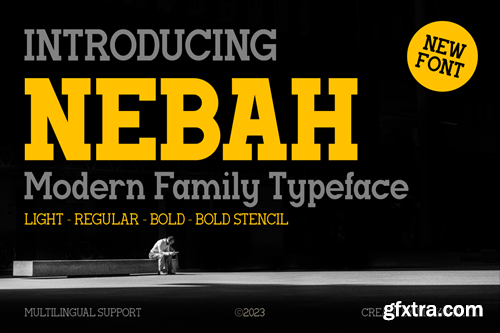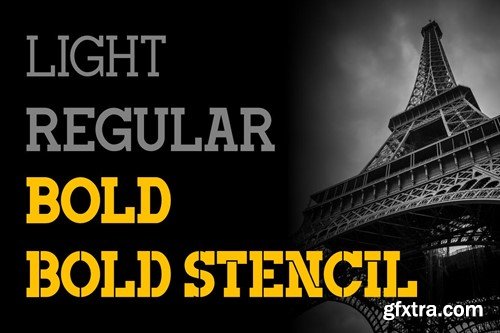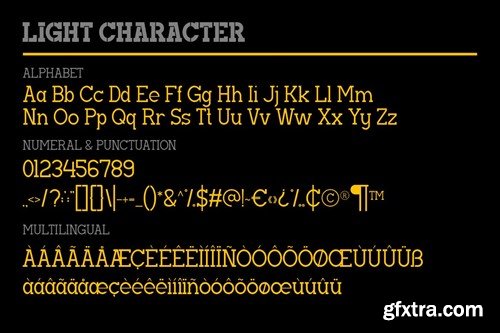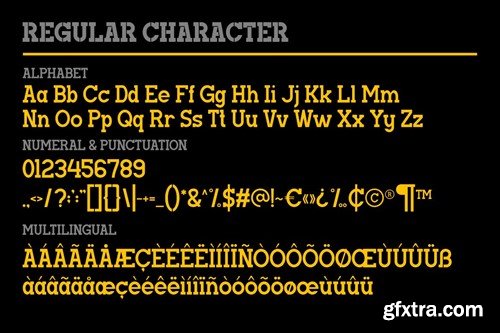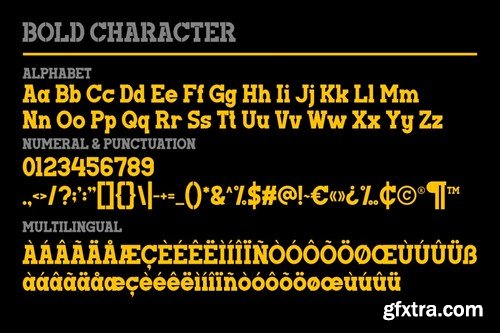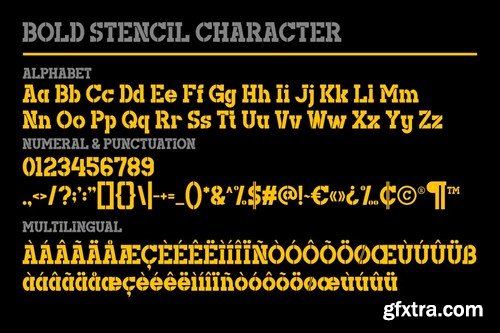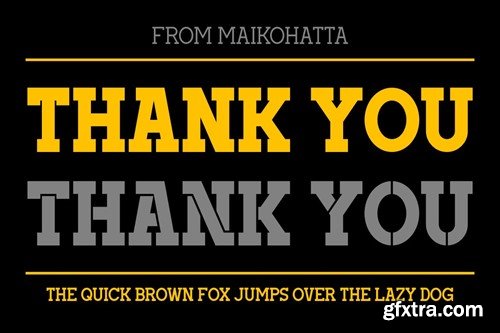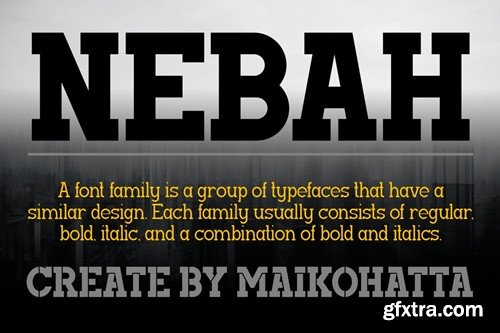
涅巴 - 现代家庭字体Y6CF2V3
Nebah - Modern Family Typeface
Introducing our new product Nebah Modern Family Typeface This font has a series of small or decorative projections called serifs at the ends of its characters. Serifs provide a more formal, classic, and easy-to-read appearance to printed text. Serif fonts are often used in formal documents, books, and print publications because of their good legibility at small text sizes. This font also has a bold stencil serif style availlable Style Font